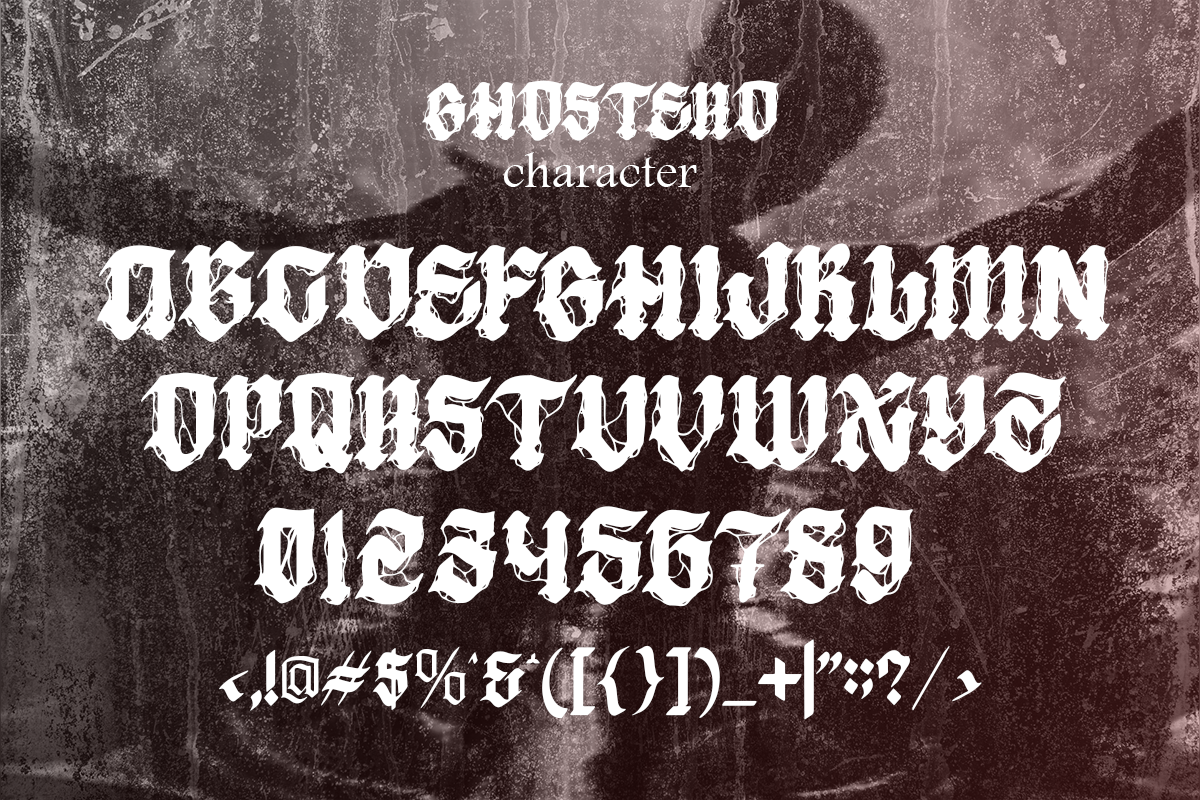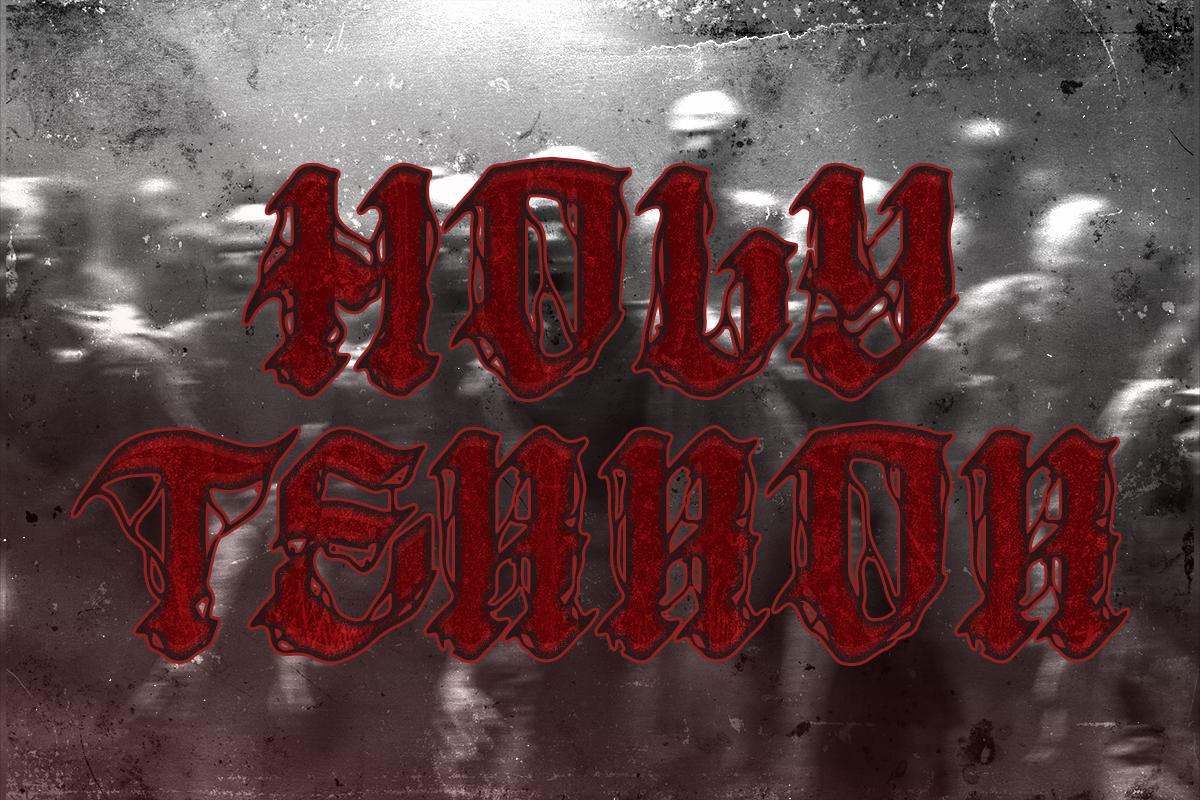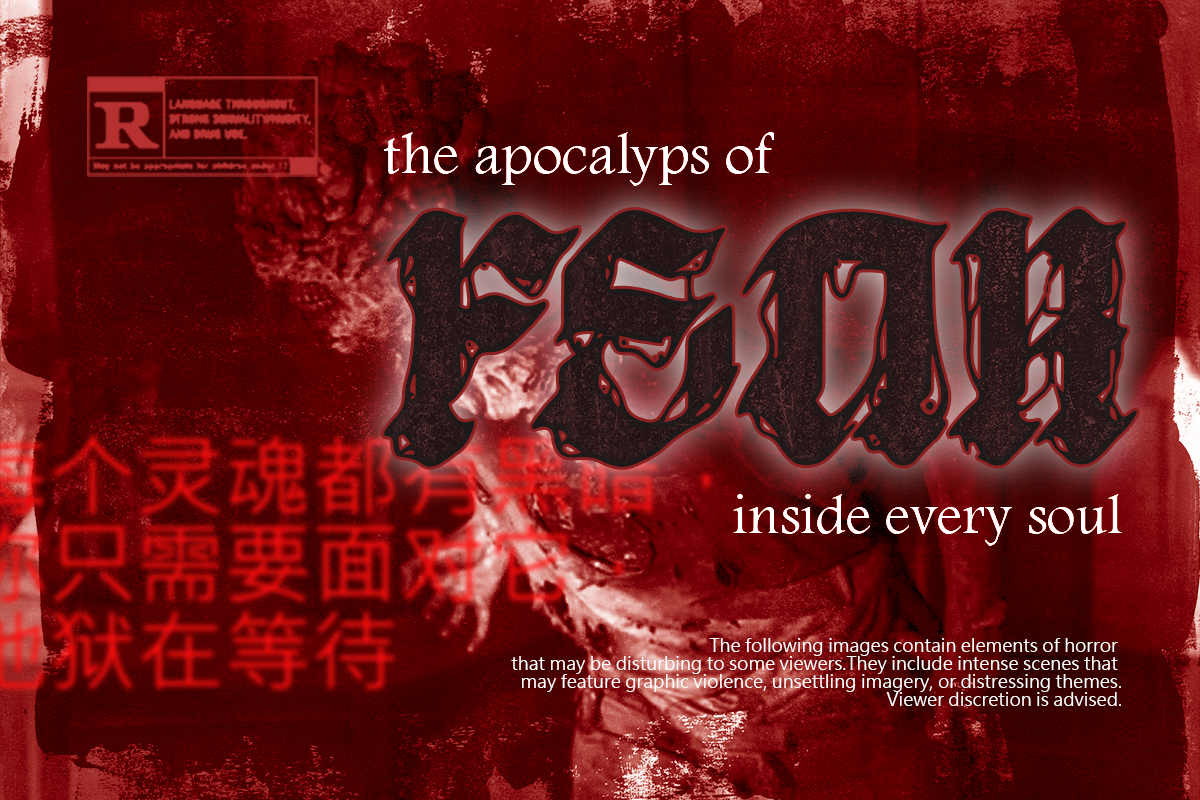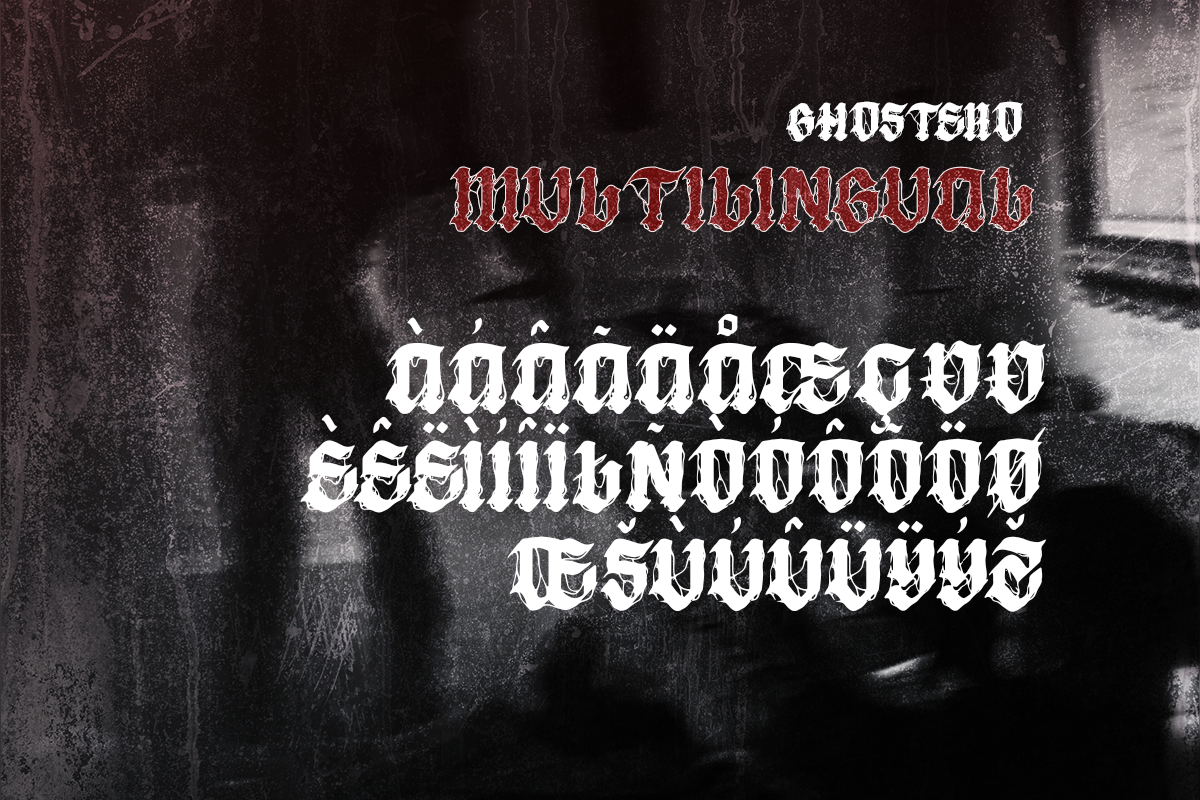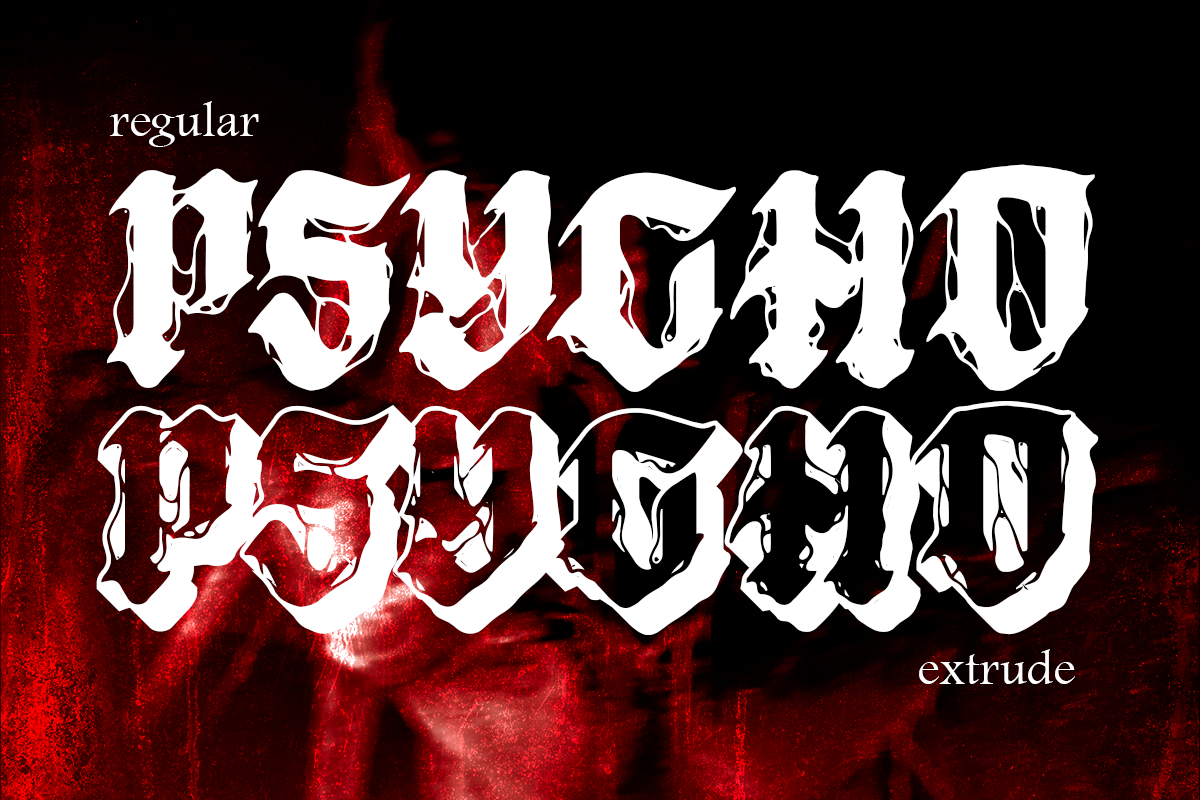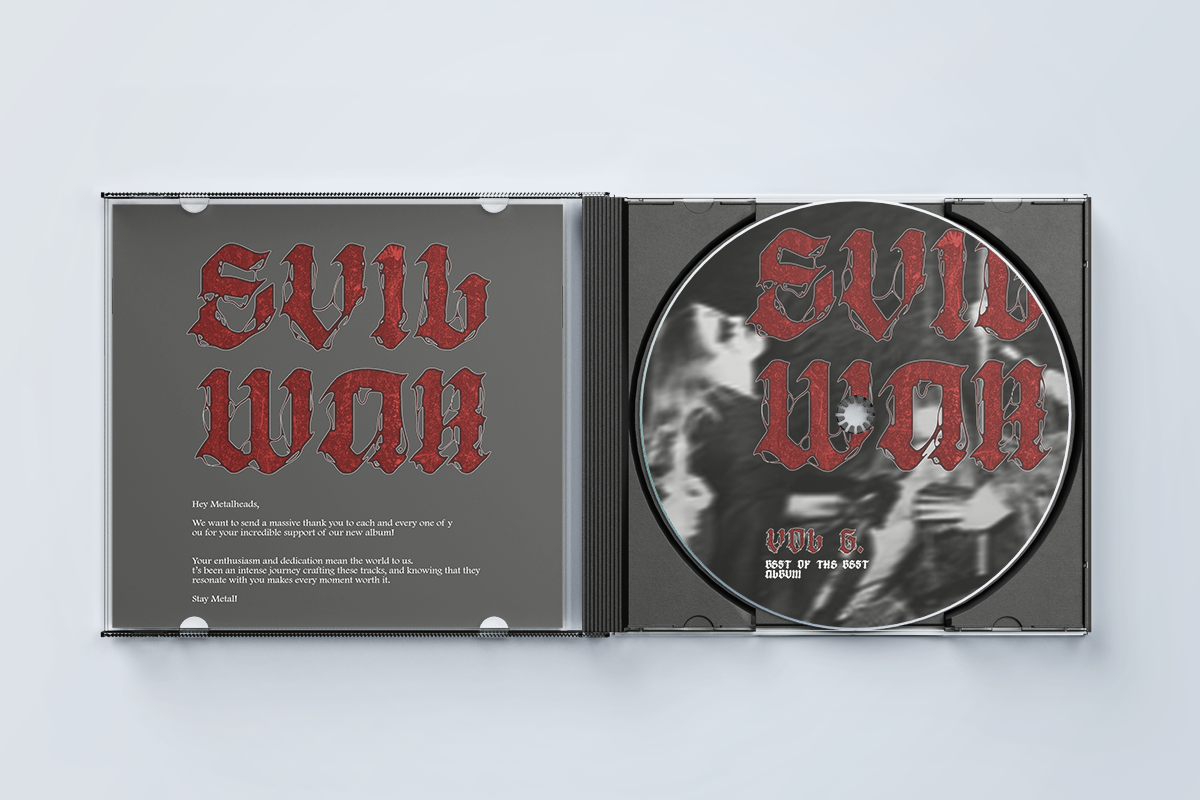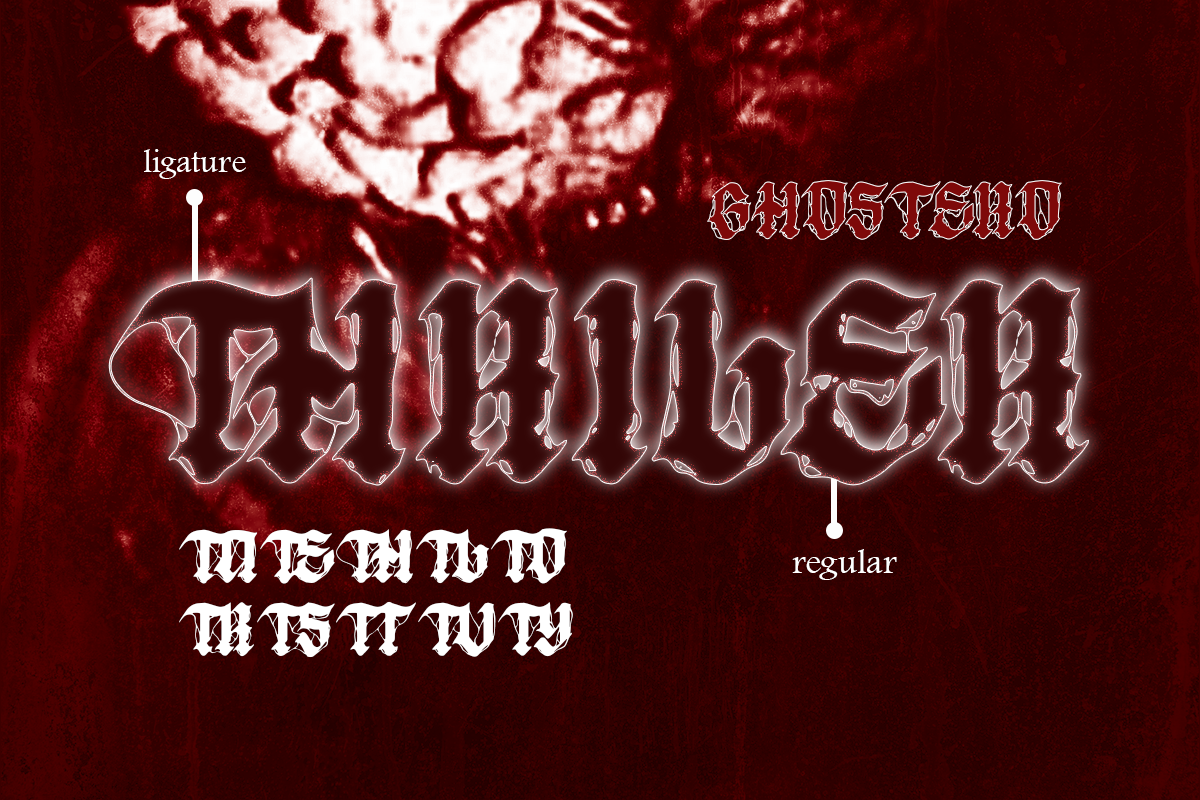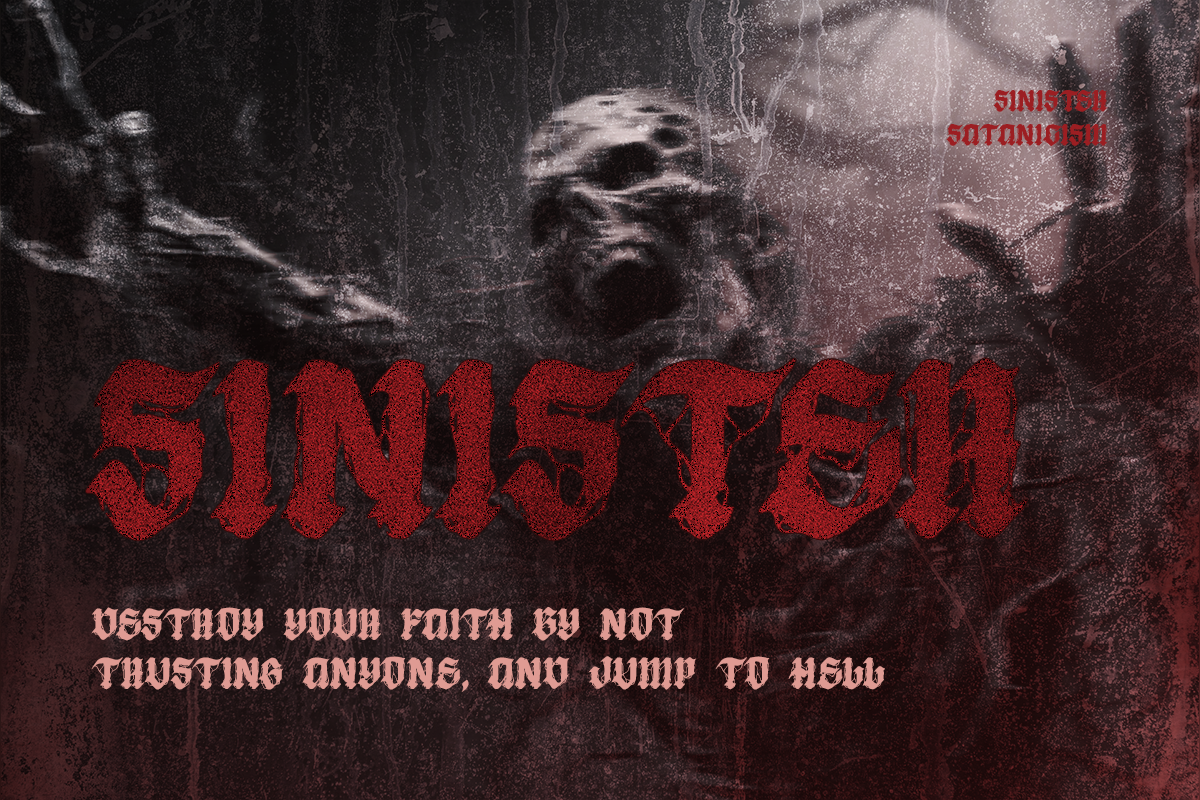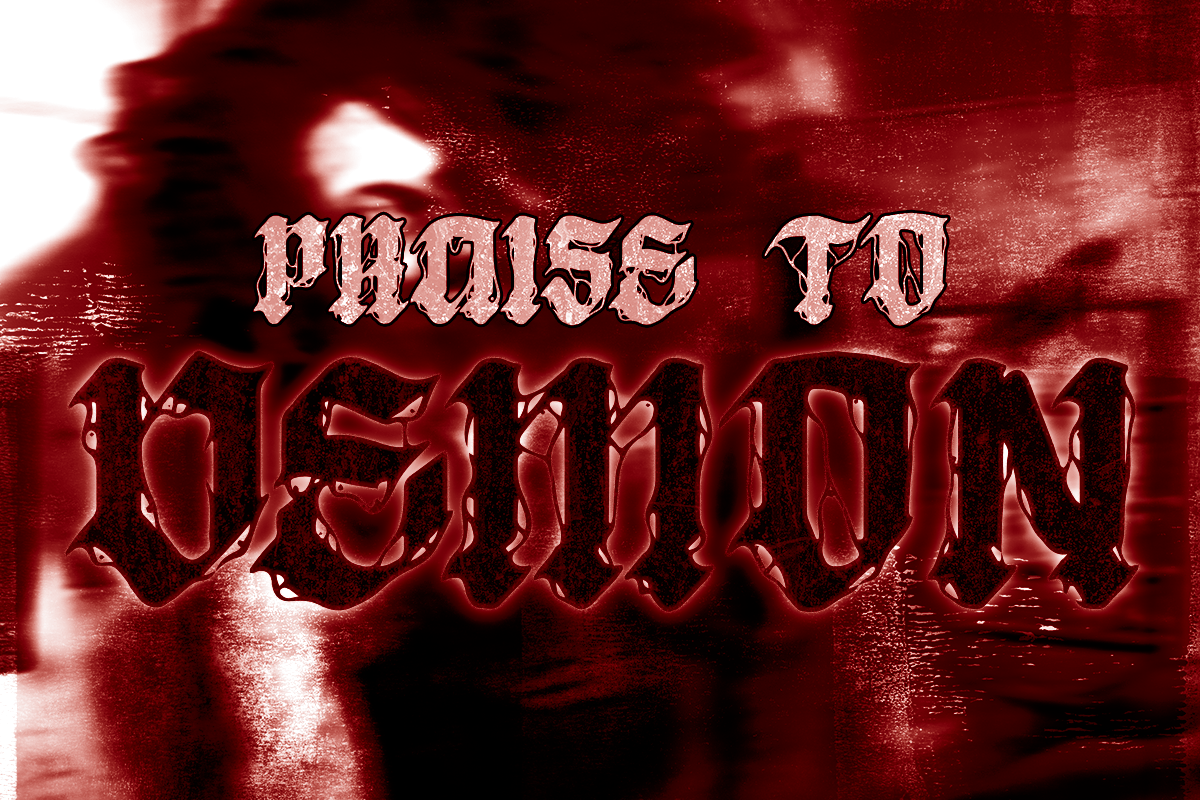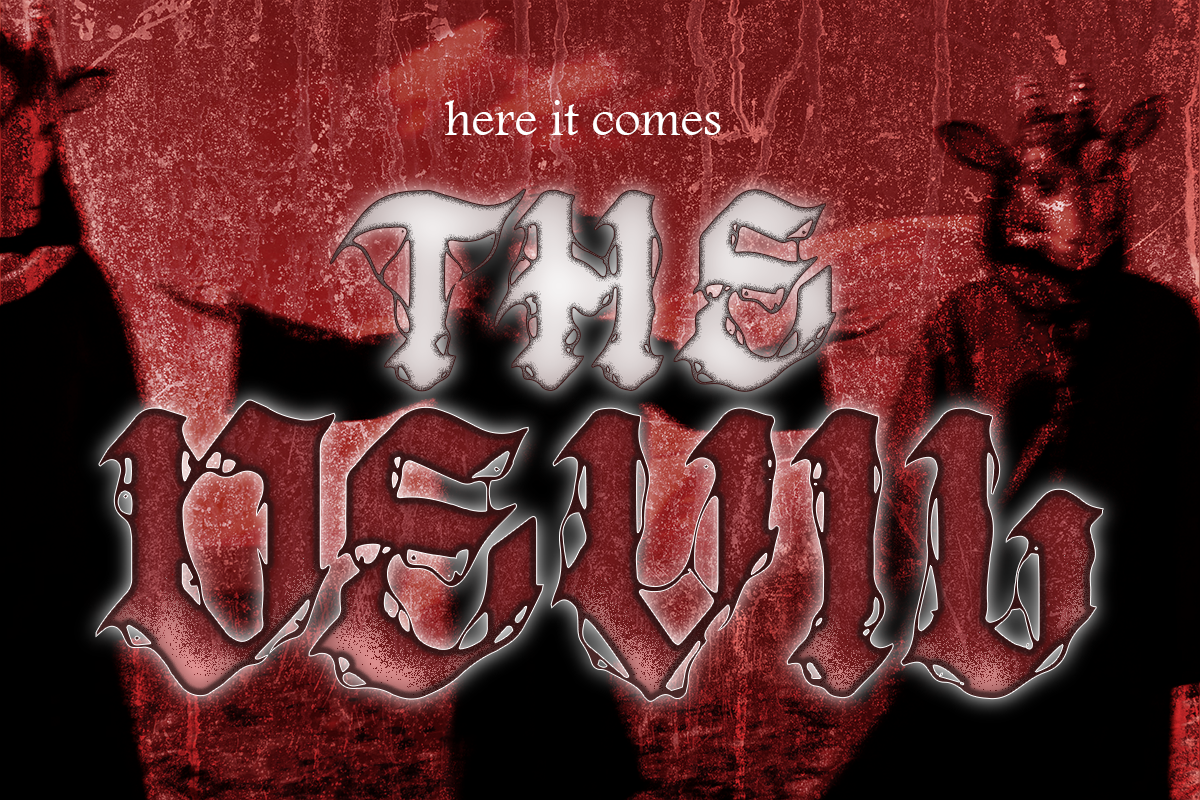
Ghostero - Horror Display
Ghostero - Gothic Horror Metal Display Font
Ghostero is a striking and intricately detailed Horror Metal Display Font that will add a bold, edgy flair to your designs. Perfectly suited for intense and eerie projects, Ghostero is your go-to choice for creating powerful visuals that resonate with a dark, gothic atmosphere.
Ghostero offers versatility with its two styles: Regular and Extrude. The Regular style brings the classic gothic horror feel, while the Extrude style adds a three-dimensional depth that makes your text pop off the page. Together, these styles give you the flexibility to create designs that are both sinister and visually dynamic.
Use Ghostero to create designs that scream with horror and rock with metal!
- Regular and Extrude Style
- Unique letterforms